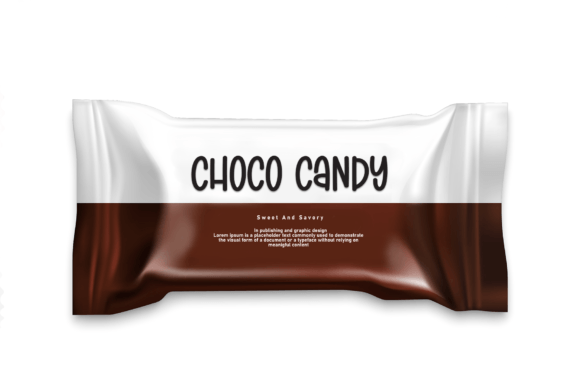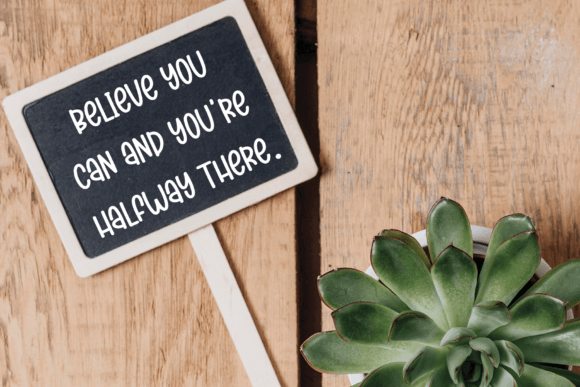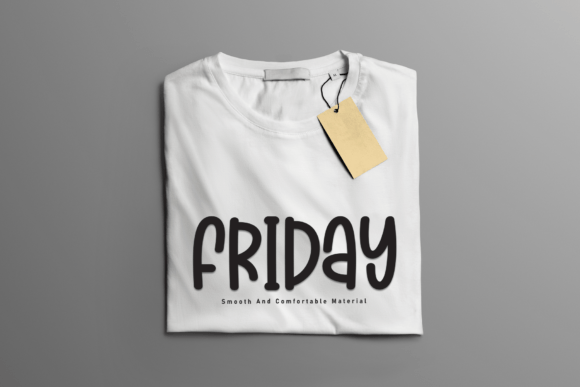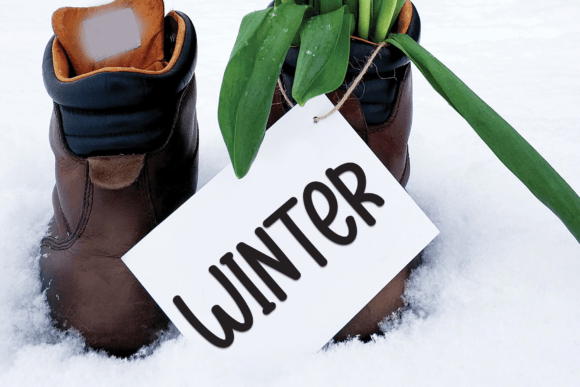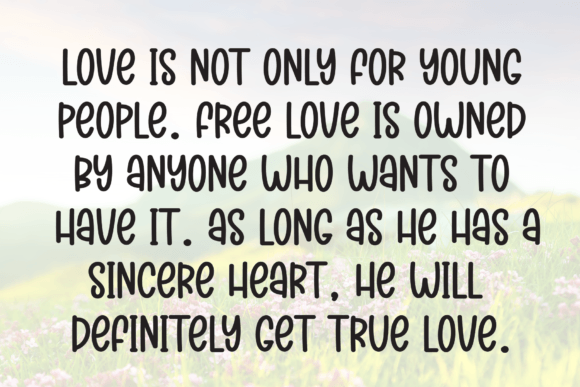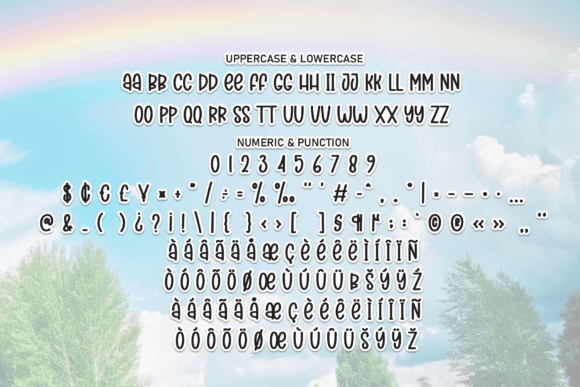
Introduction to Rainbow Friends Font
Have you ever been stuck on a creative project, searching for that perfect font to bring your vision to life? You’re browsing through font collections, scrolling through design websites, and testing out different styles, but nothing seems to capture the playful essence you’re looking for. Well, we’ve got some good news for you – you might just find your new favorite font in the Rainbow Friends Font, a charming handwritten typeface that’s sure to add a personal touch to any design project.
Whether you’re working on a greeting card, a whimsical branding project, or a cozy invitation, the Rainbow Friends Font is the perfect design resource to add a sweet and friendly feel to your work. With its high-quality, transparent background, you can easily incorporate it into your designs and make them stand out. And the best part? It’s available for free download, making it an invaluable addition to any designer’s toolkit.
As a designer, having access to a versatile and high-quality font like the Rainbow Friends Font can be a game-changer. It allows you to experiment with different styles, add a personal touch to your work, and create unique designs that truly reflect your brand’s personality. So why settle for a generic font when you can add a dash of whimsy and charm to your projects with the Rainbow Friends Font?
Rainbow Friends Font
- Includes a variety of colorful characters, making it perfect for projects that require a playful and vibrant aesthetic.
- Designed with a unique and whimsical style, making it a standout choice for designers looking to add a touch of personality to their work.
- Perfect for use in social media graphics, advertising, and other design projects where a bold and eye-catching font is required.
Honest Review: Rainbow Friends Font
As a designer, I’m always on the lookout for new and exciting fonts to add to my collection. Recently, I stumbled upon the Rainbow Friends Font, and I must say, it’s a real treat. This font is perfect for any creative project that requires a pop of color and fun.
Here’s what works well:
- High-quality design: The Rainbow Friends Font is incredibly detailed and well-designed, making it perfect for both digital and print projects.
- Transparent background: This feature allows for easy background swapping, making it super versatile.
- ⚠️ Limited character set: The font only includes uppercase and lowercase letters, with no numbers or punctuation.
- ⚠️ Not ideal for body text: The font is better suited for headings and titles, as it can be quite busy and overwhelming for large blocks of text.
Overall, I’m really impressed with the Rainbow Friends Font. It’s a fantastic design resource for anyone looking to add a touch of whimsy to their creative project. With a little creativity, this font can be used in a variety of ways, from branding to editorial design. ✨”
The Rainbow Friends Font is a versatile design resource that can be used in a variety of creative projects, such as social media graphics, posters, and flyers. It’s also a great choice for designers who want to add a touch of whimsy and fun to their designs.